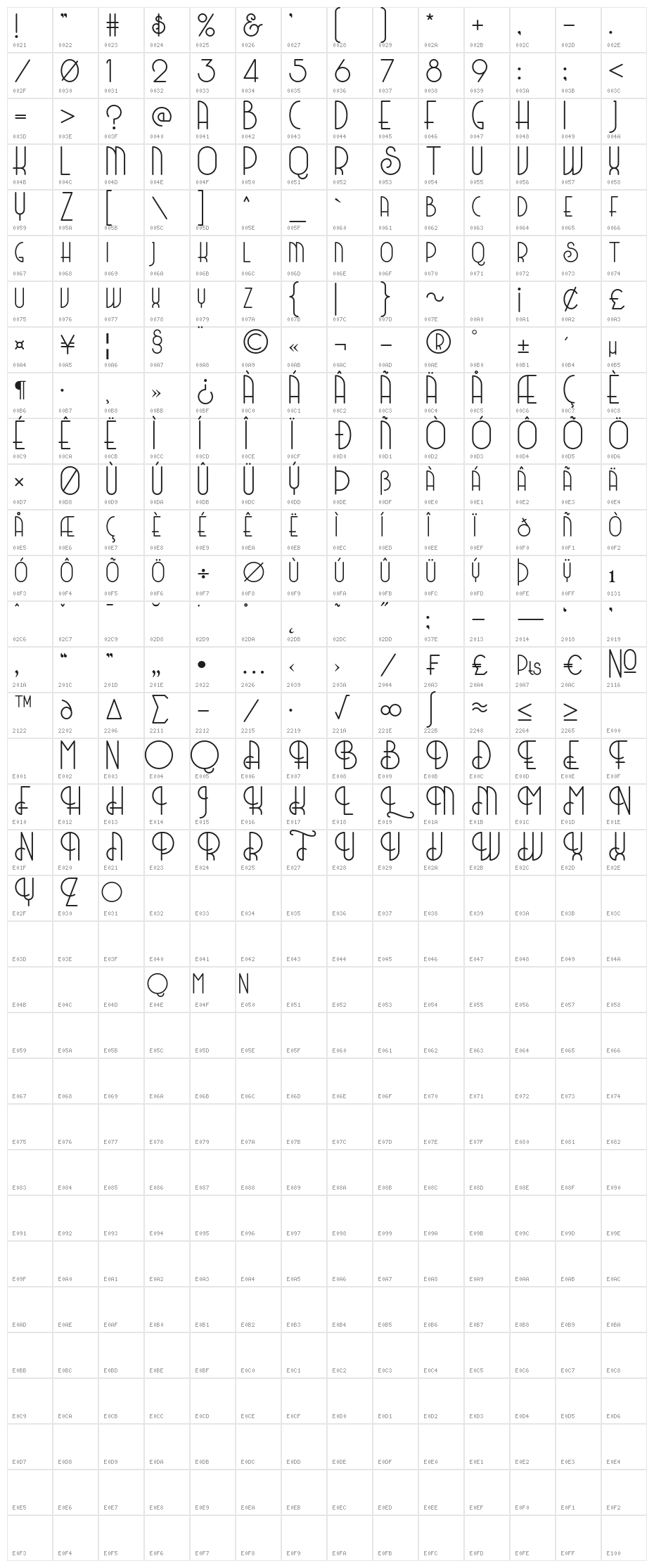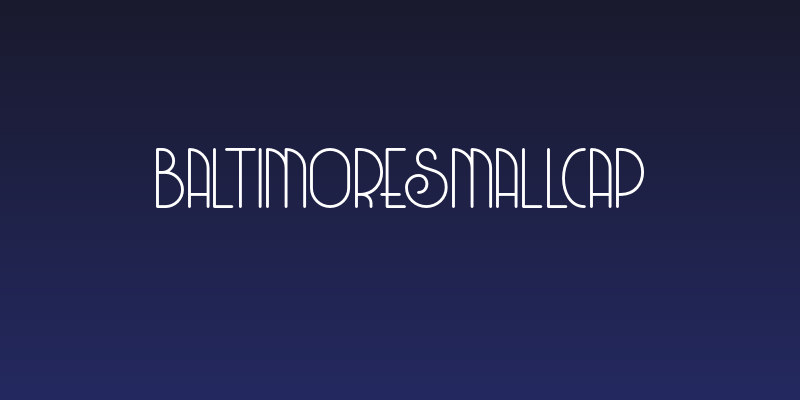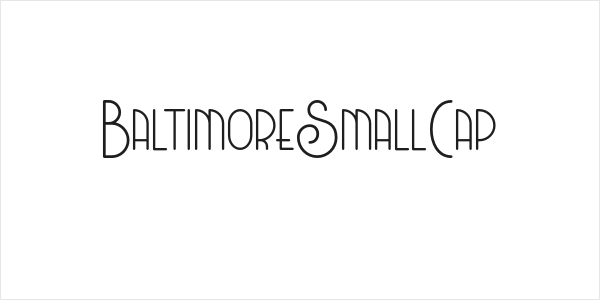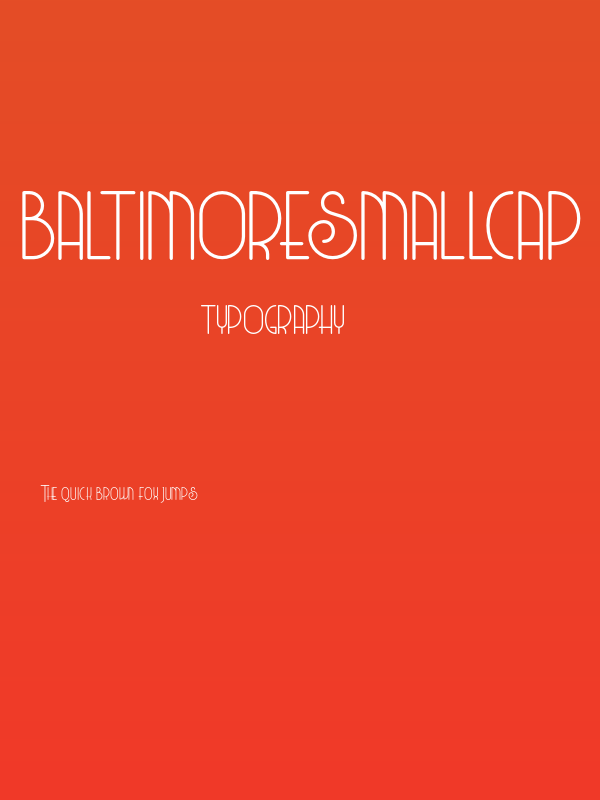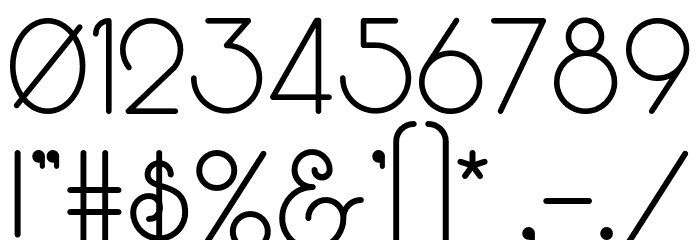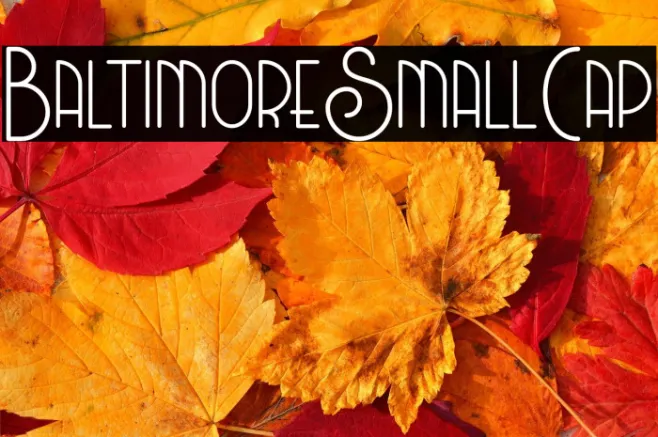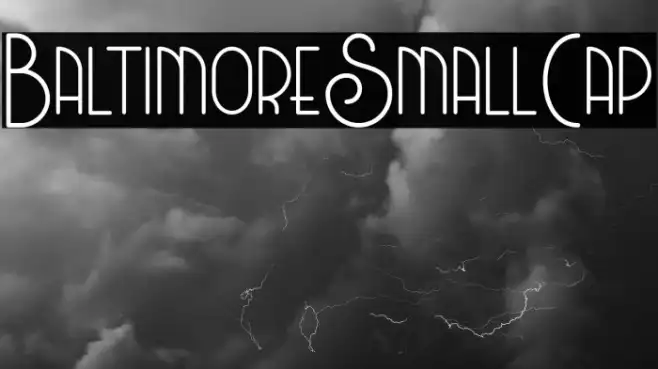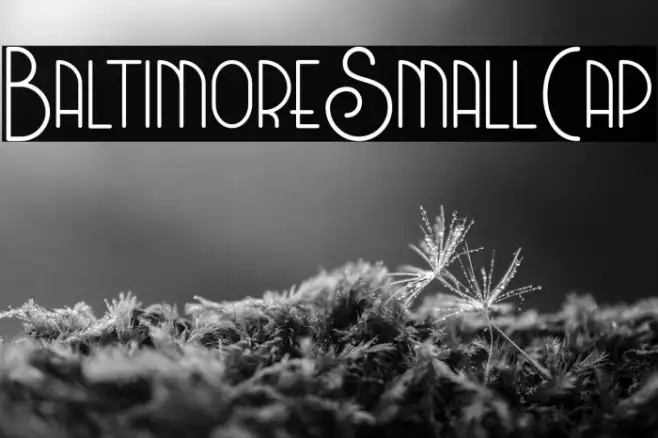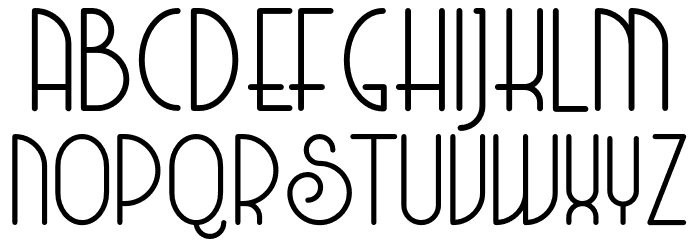
BaltimoreSmallCap Font
BaltimoreSmallCap Description
This font features a unique and modern design with a geometric and rounded appearance. The characters are constructed with consistent stroke widths, creating a harmonious and balanced look. The uppercase letters are tall and narrow, while the lowercase letters maintain a similar structure, enhancing readability. The numerals are distinct and align well with the overall style, making them suitable for various applications. Special characters are thoughtfully designed to match the aesthetic, providing a cohesive visual experience.
| Font Family | Baltimore Small Cap |
| Proposed Projects | Ideal for branding, advertising, and editorial design projects that require a modern and stylish touch. |